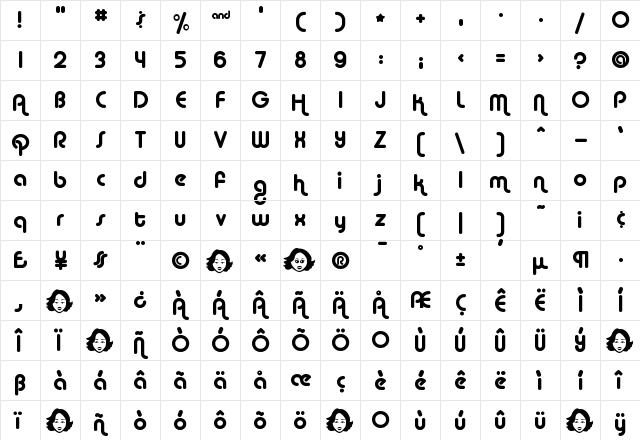
Alba Regular
Design Context for Alba Typeface
Alba is a composed and adaptable typeface that performs quietly and consistently across a wide range of design contexts.